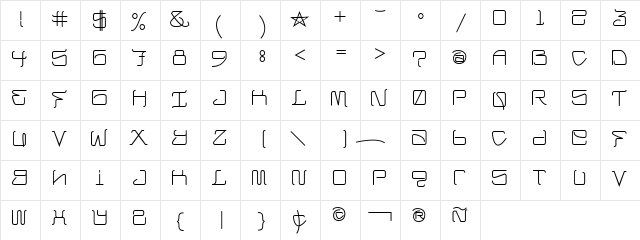
Califas-Neon Regular
| Foundry | Matthew Napolitano / Highground Industries |
| Designer | Matthew Napolitano / Highground Industries |
Design Context for Califas-Neon Typeface
Califas-Neon channels digital-age aesthetics through its sharp, structured letterforms — ideal for brands that want to signal innovation.